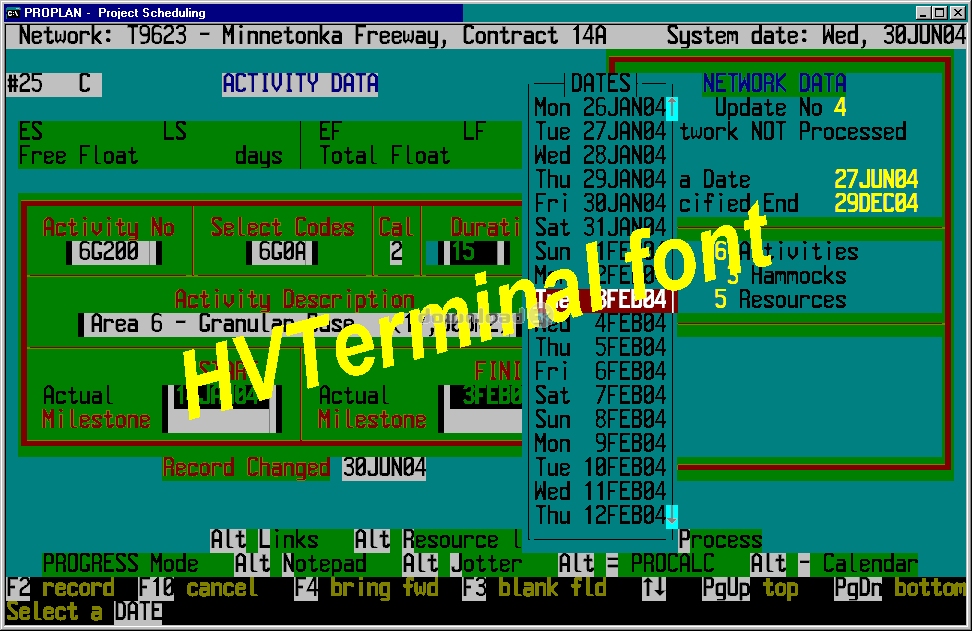
HVTerminal TrueType Terminal Font 1.0
"Hi-Visibility TrueType Terminal fonts"
The HVTerminal suite is a set of Hi-Visibility TrueType Terminal fonts designed to supplement or replace the standard Windows fonts used in NT terminals and MS-DOS Boxes. The fonts are in a monospaced OEM character set. The package includes Normal, Wide, and Narrow widths and a Light version. The fontface is based on ProCon's Hi-Visibility HVFont which produces much stronger character glyphs and more legible punctuation characters.Requirements: TrueType font support